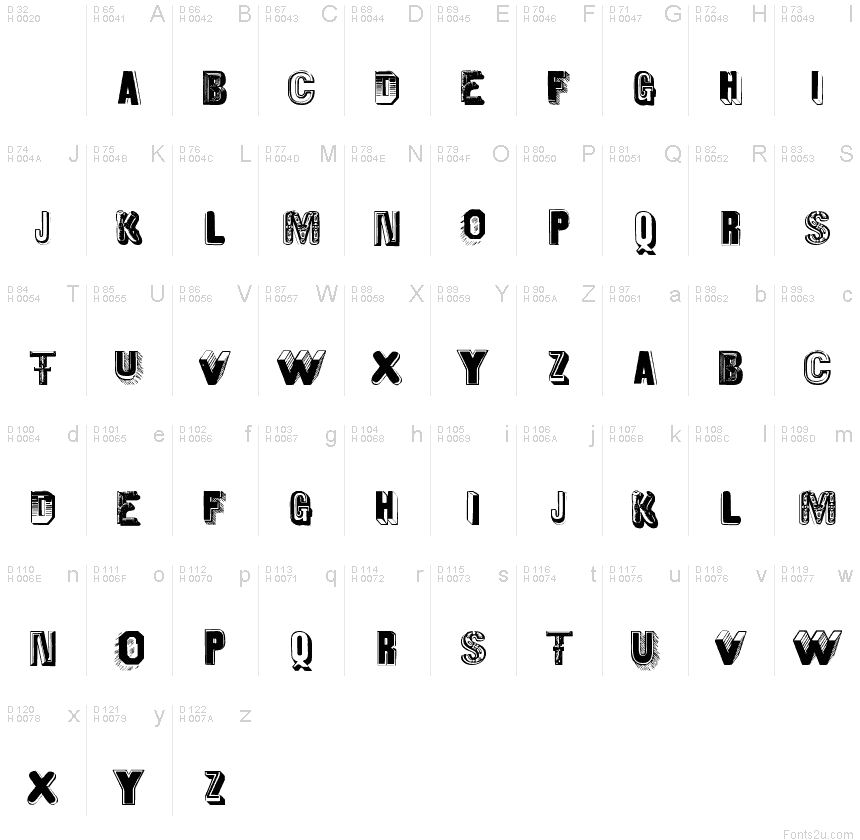
OldiesButGoodies by Manfred Klein is a free illustrated display font built from hefty capitals, with carved edges, inset stripes, deep shadows, patches of scratchy hatching, and alternating rounded or sharply angled silhouettes. No two letters follow quite the same construction.
A record shop identity or vintage product package could use its mismatched block forms to recall hand-cut signs, old comic advertising, fairground display lettering, and roughly printed ephemera. The changing dimensional effects also suit album covers, gig posters, and event graphics with a playful nostalgic theme, since the words can become part of the artwork rather than a neutral caption.